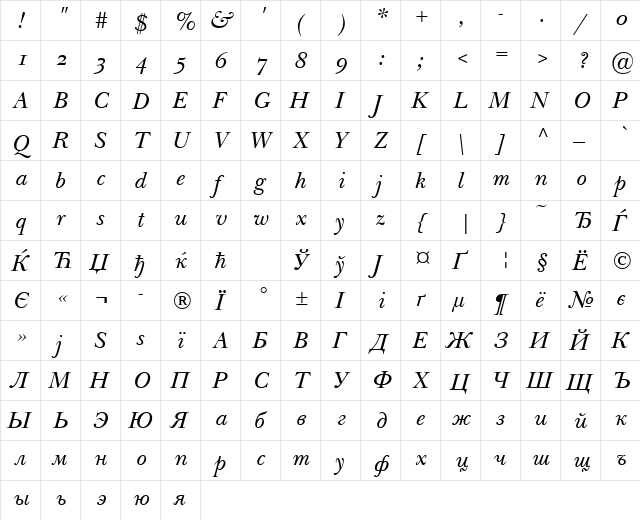
NewBaskervilleODTT Italic
Design Context for NewBaskervilleODTT Typeface
NewBaskervilleODTT offers clean, dependable letterforms without strong stylistic allegiance, making it a practical choice for designers who need flexibility. The dynamic lean of this cut emphasises speed and emphasis in any layout.